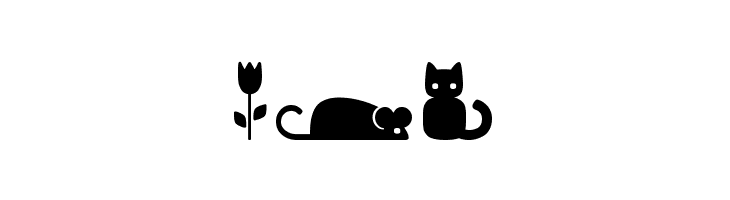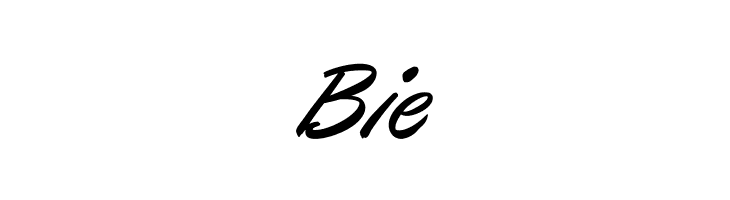
A playful, bold font with rounded edges and a bubbly appearance.
A bold, modern font with a slightly condensed and clean design.
A classic serif font with elegant curves and a modern twist.
A classic serif font with a modern twist, featuring elegant and balanced characters.
A bold, rounded font with a playful and friendly design.
A bold, rounded font with a playful and modern style.
A playful set of bold, whimsical dingbats featuring icons like flowers, animals, and social media logos.
A dynamic script font with elegant calligraphic influences and dramatic flourishes.
A cursive, italicized font with a dynamic and flowing style.